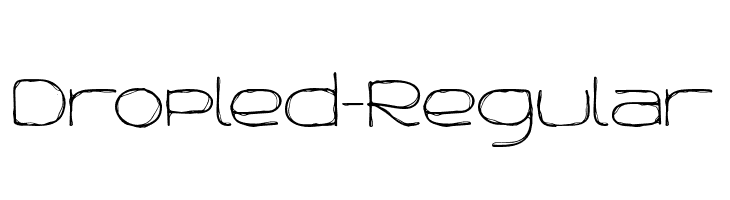
A whimsical, hand-drawn font with fluid, organic strokes and dynamic character forms.
A playful and quirky font with irregular, whimsical letterforms.